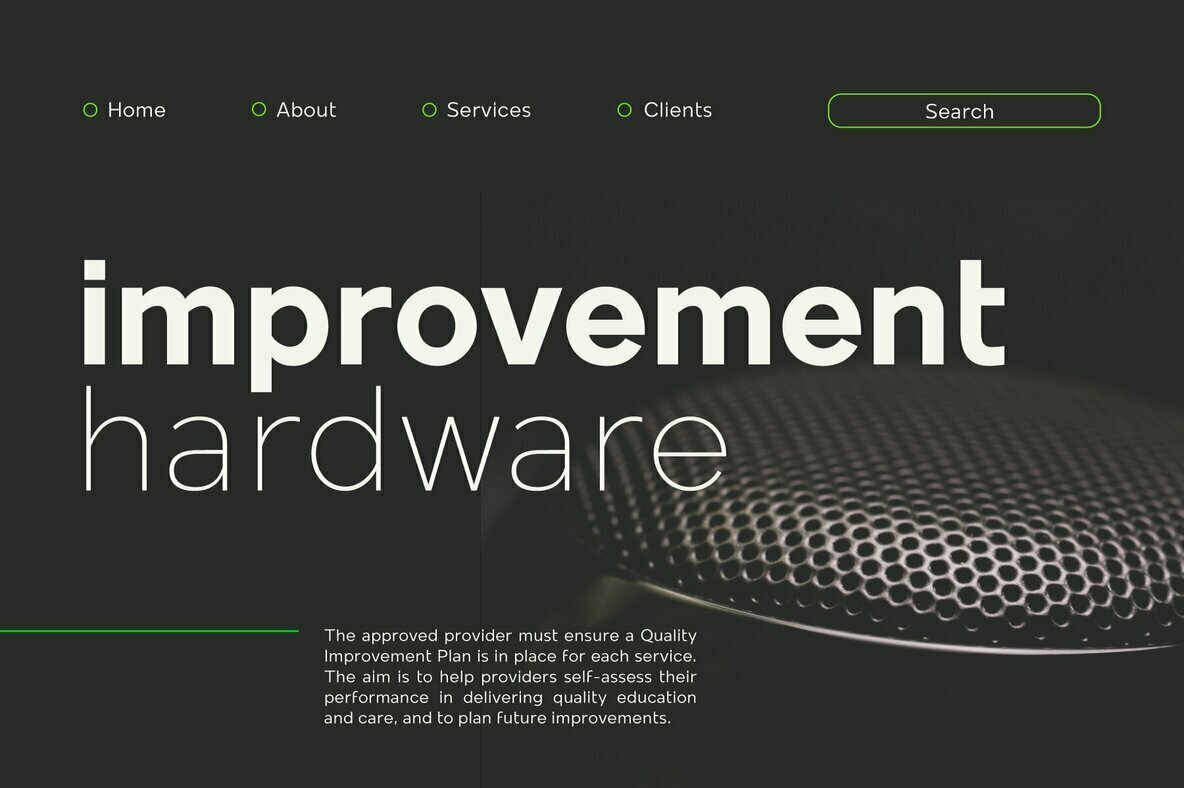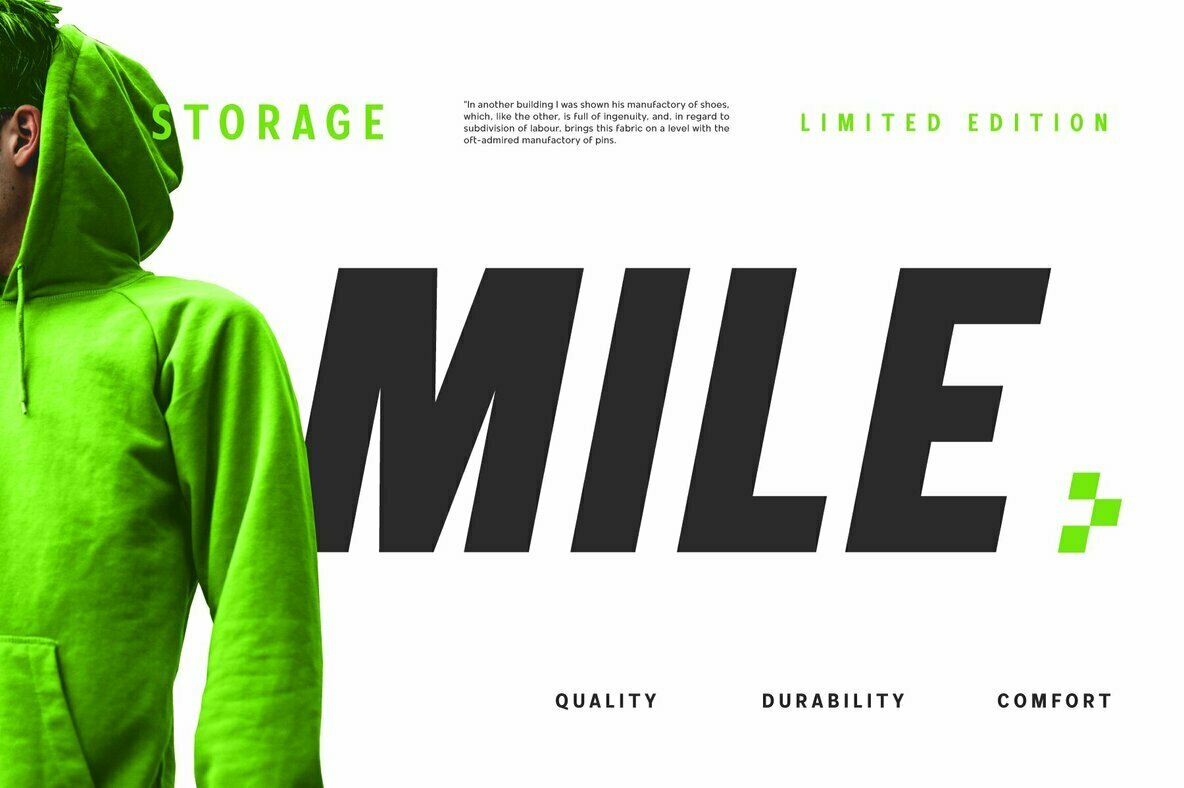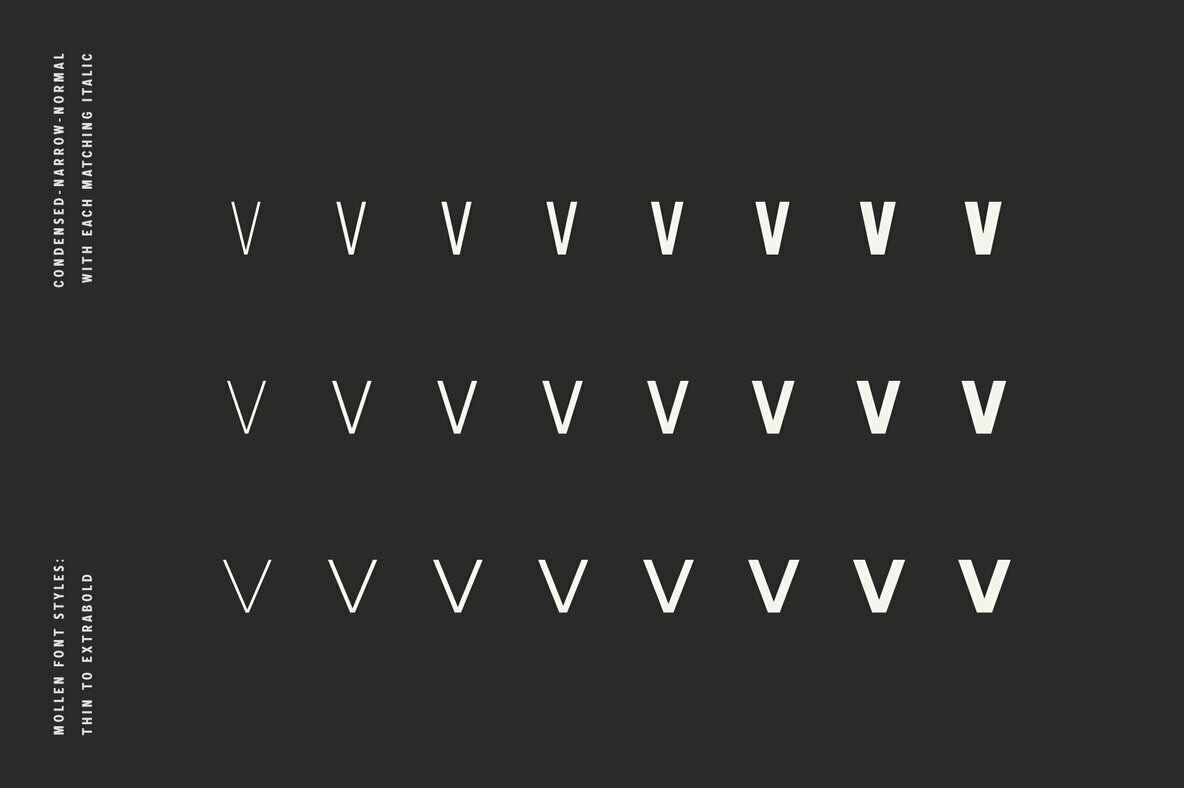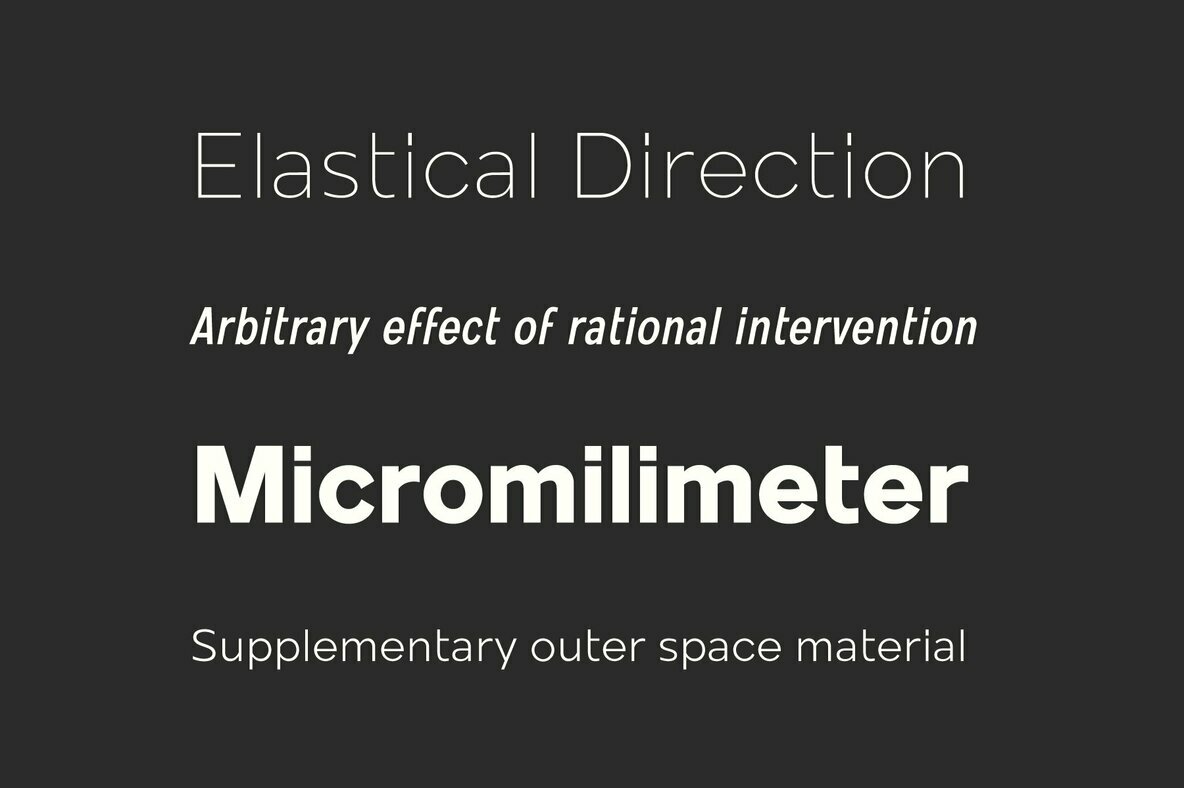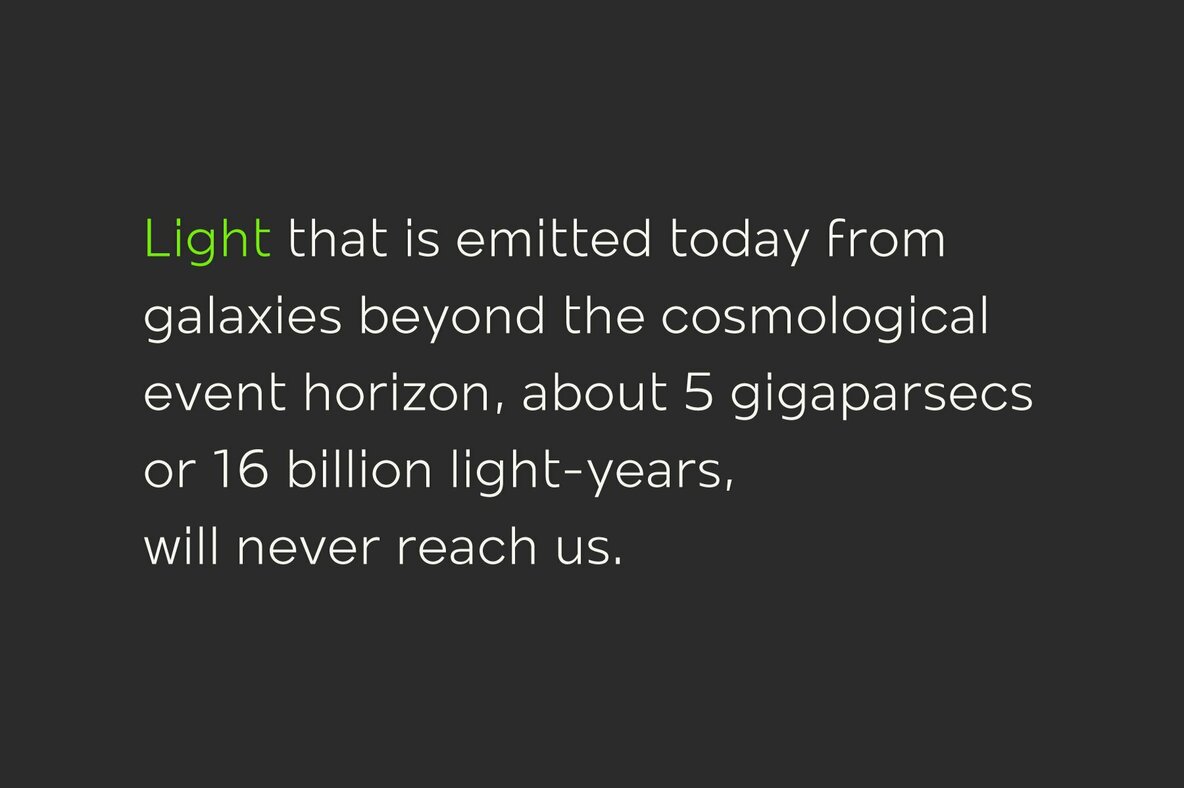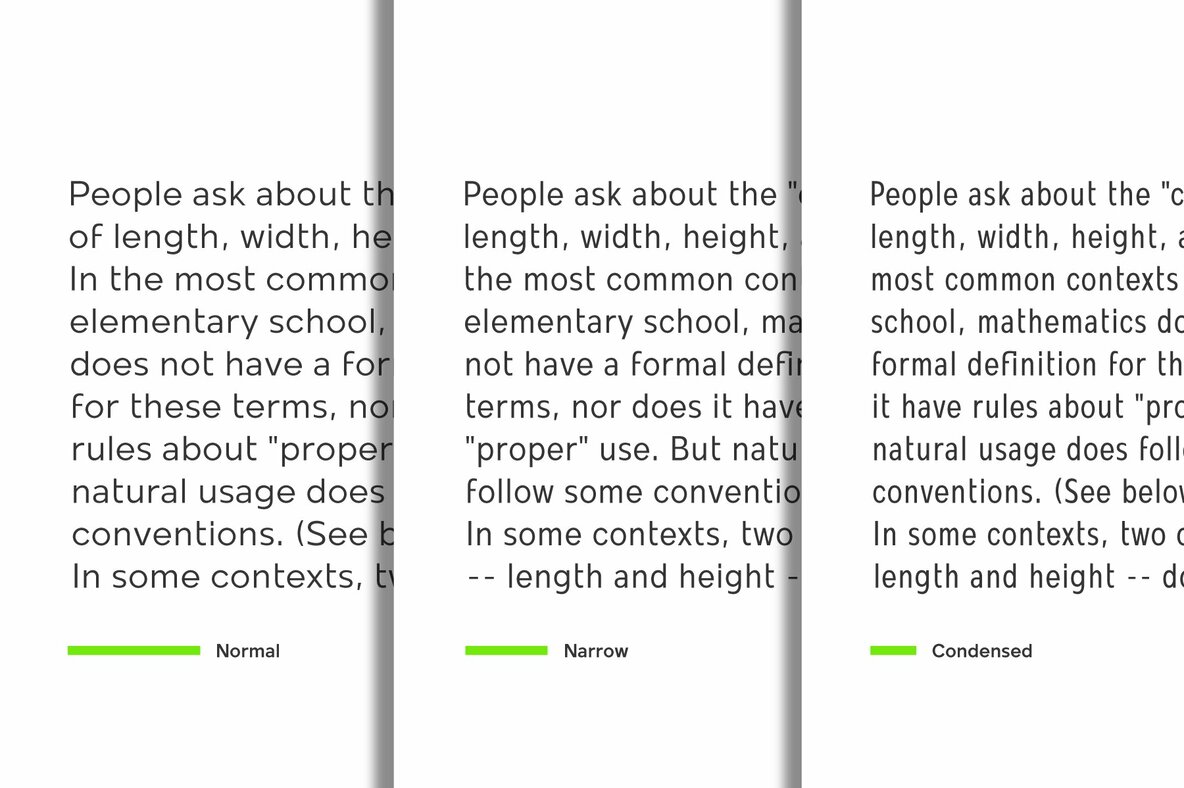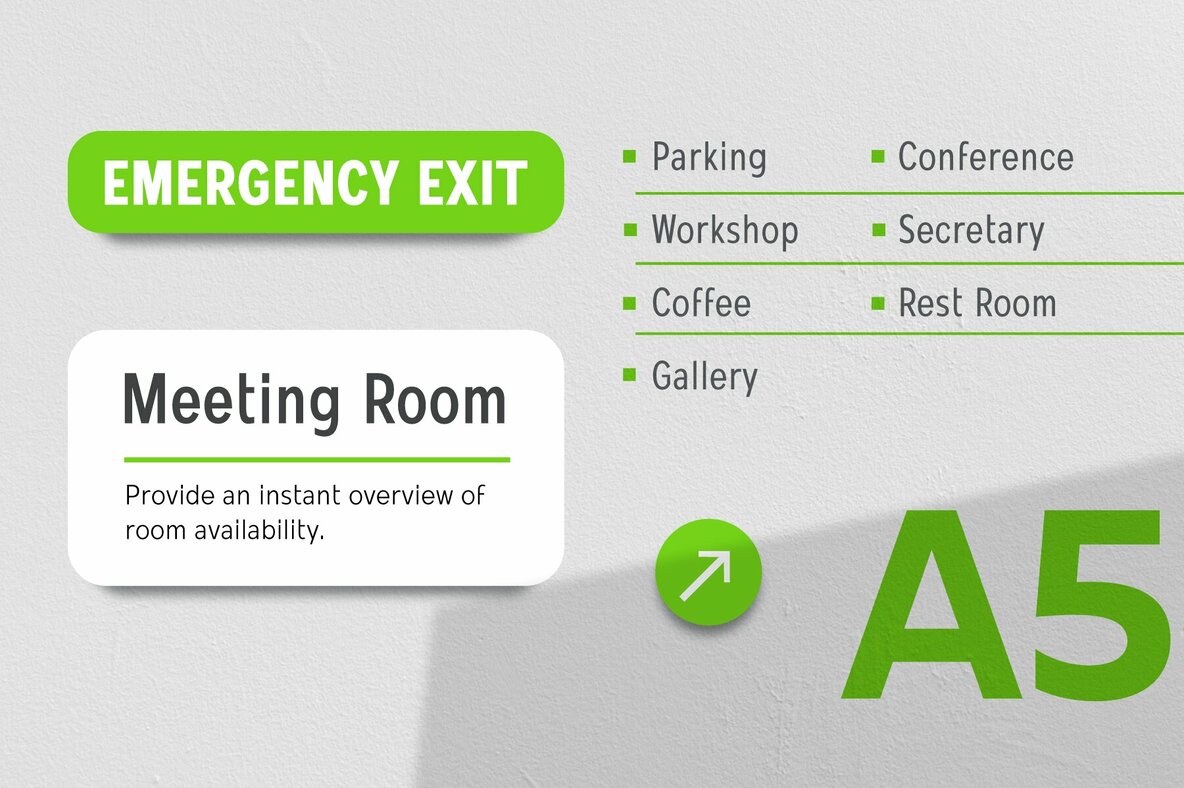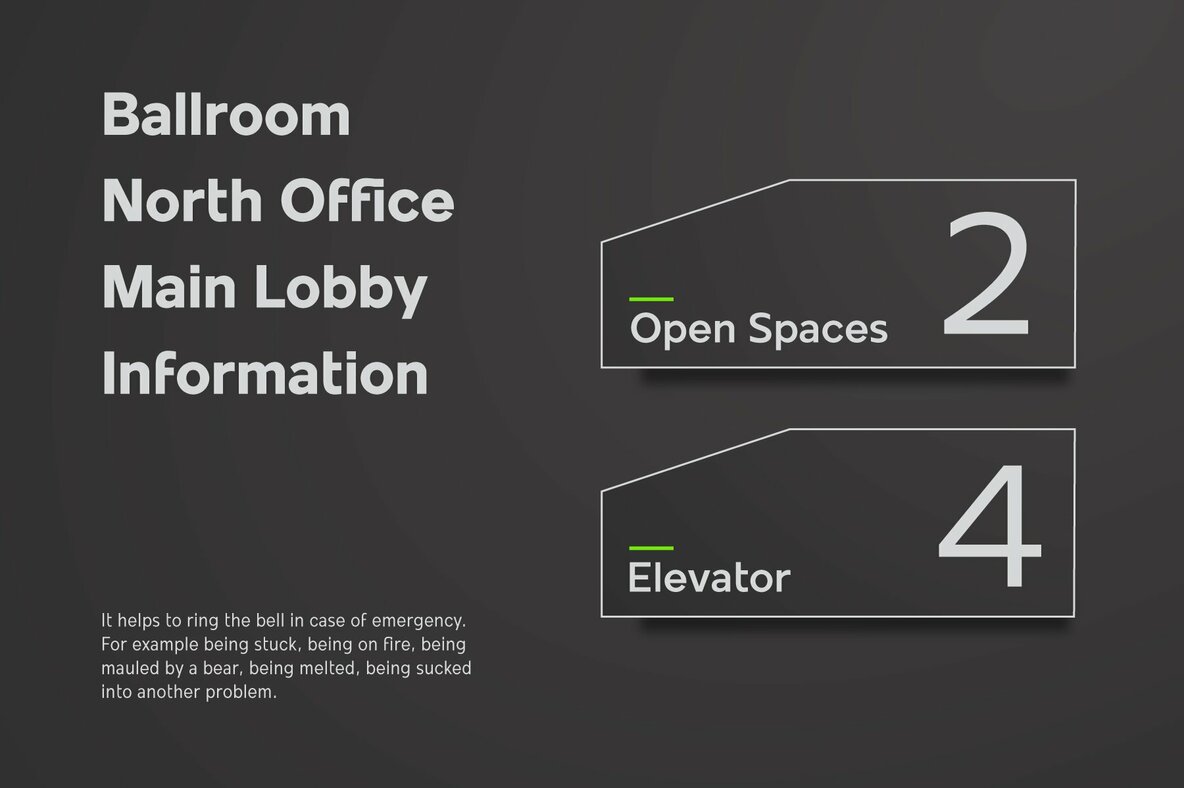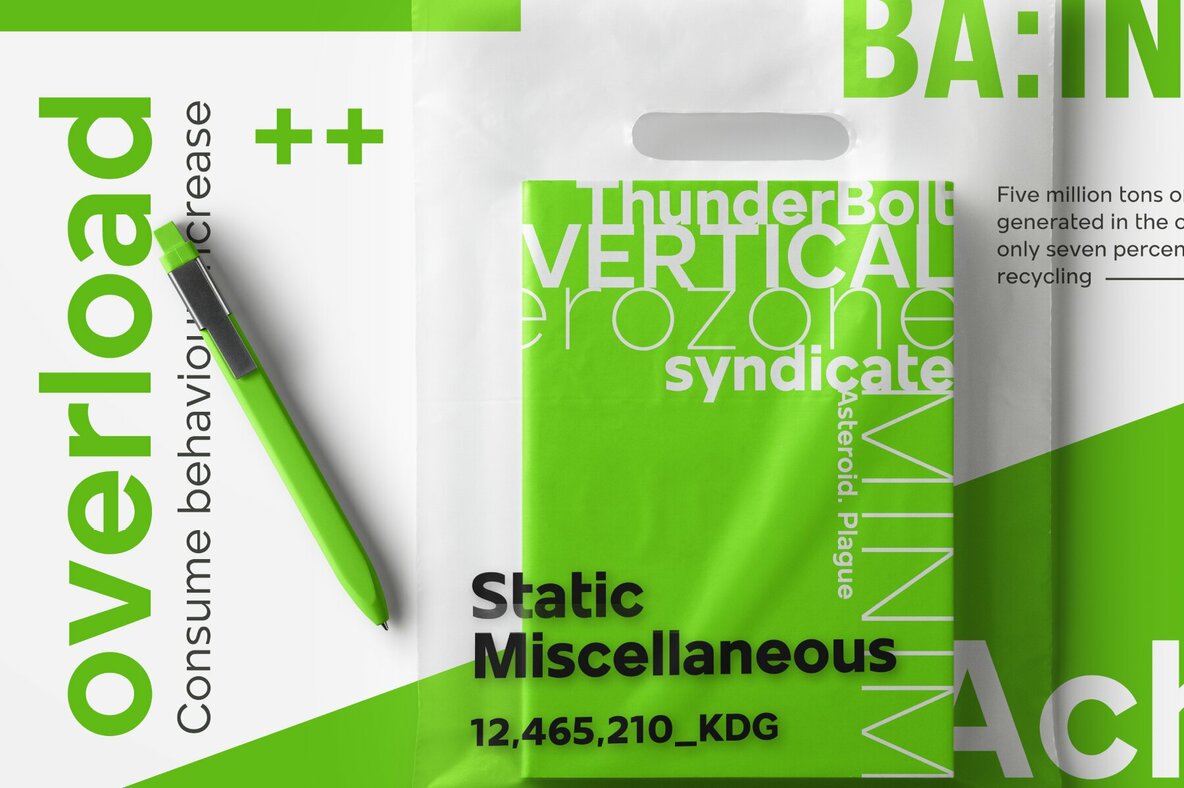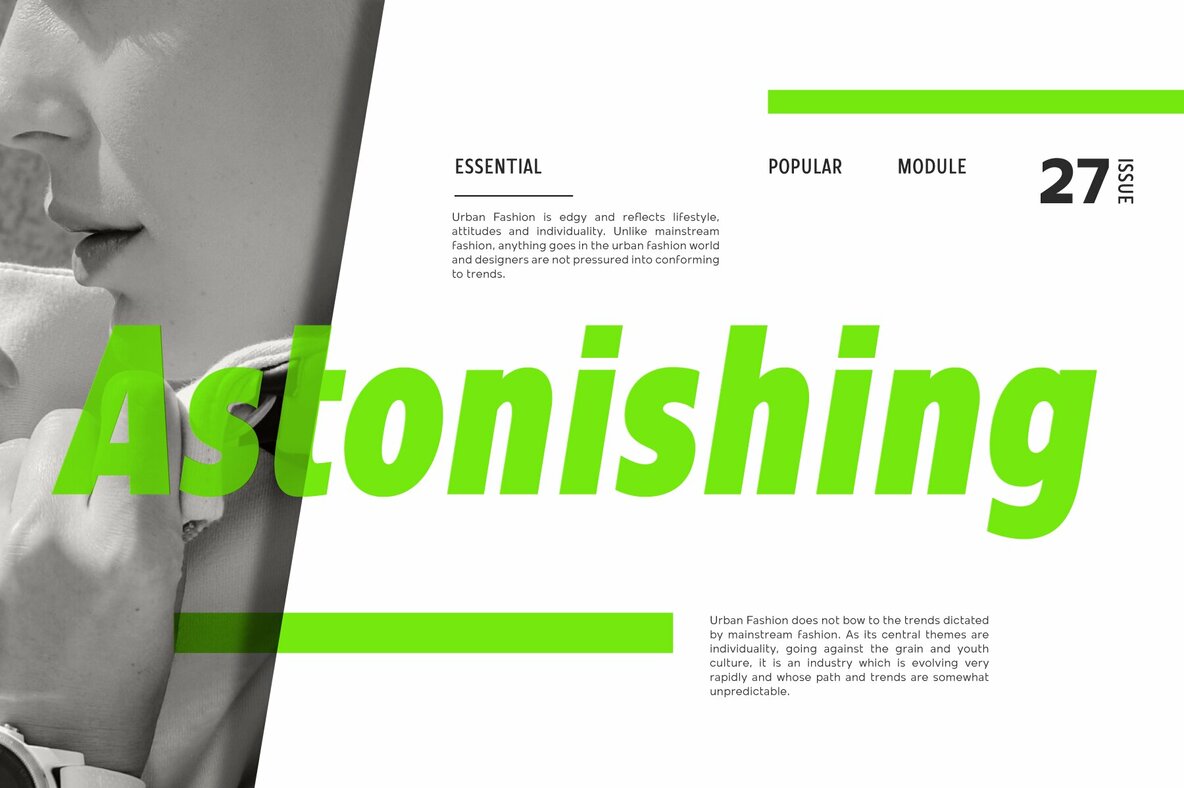
Mollen Font
Mollen is sans serif font family that designed to be functional. Each glyphs are shaped by geometrical form with specific visual structure: Simple and clean form with low contrast stroke, rounded 'o' in the normal width, mix diagonal and straight cuts on terminals and finials. Low capitals, with flat top and low descenders. With this personality, Mollen meant be fit for modern, contemporary and technological nuance.
Mollen consist of 48 font with 8 weight: From Thin to ExtraBold and 3 width: Condensed, Narrow and Normal. With each matching Italics. It also contain 425 glyphs and several opentype features.